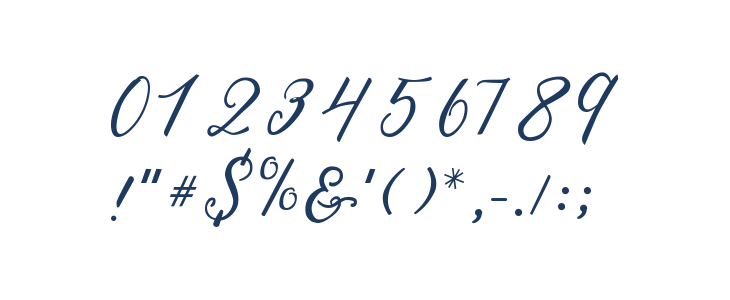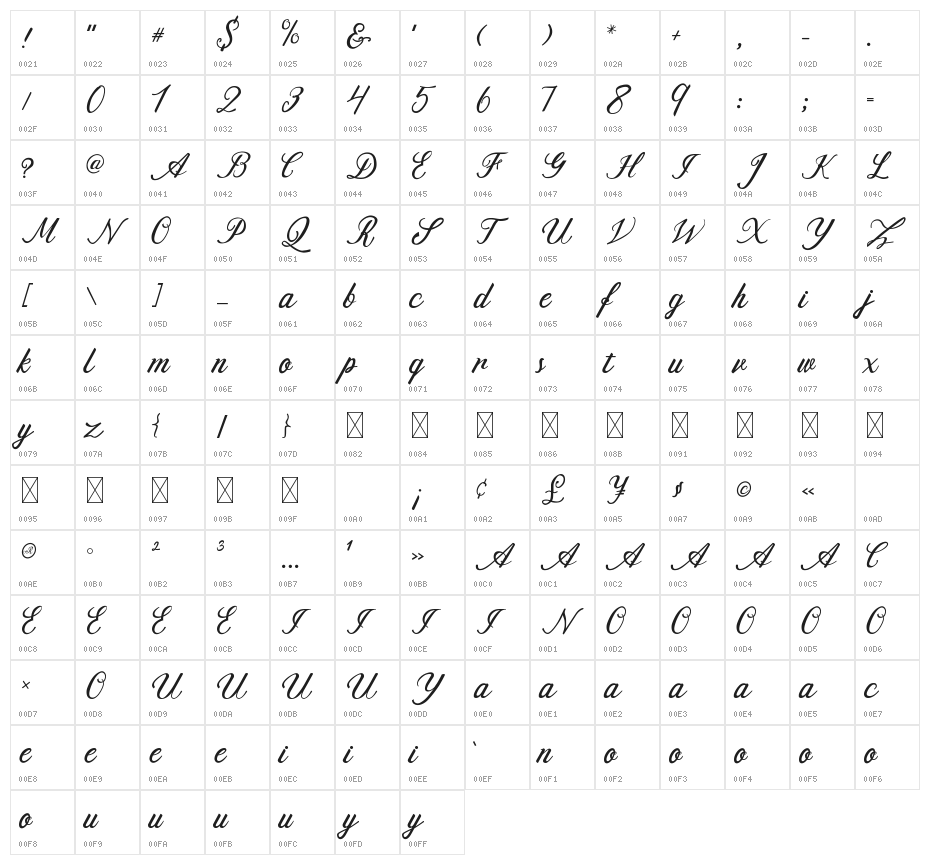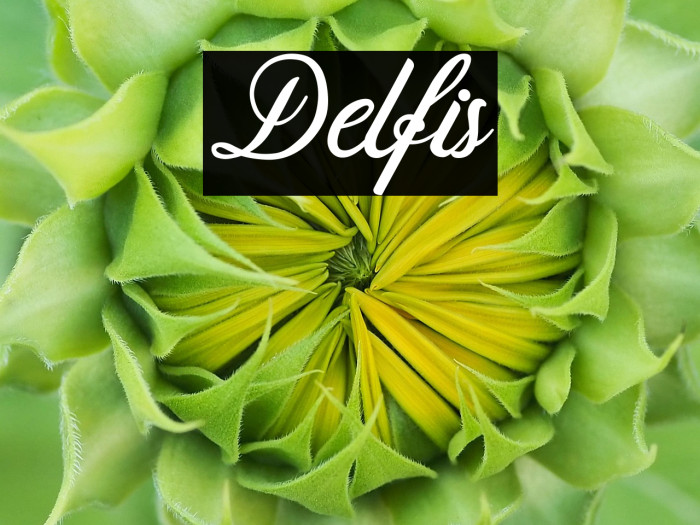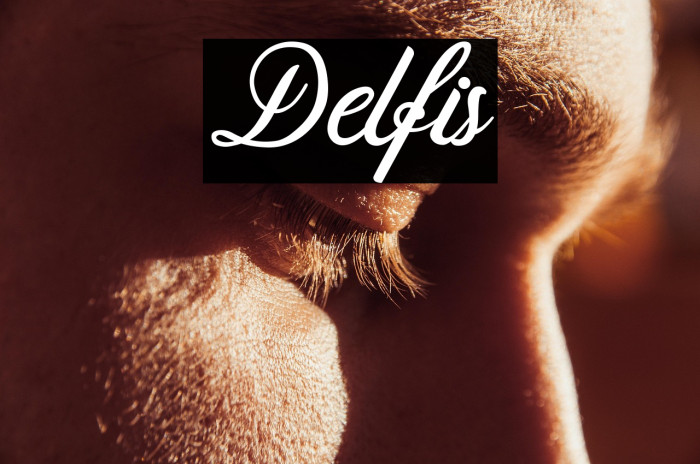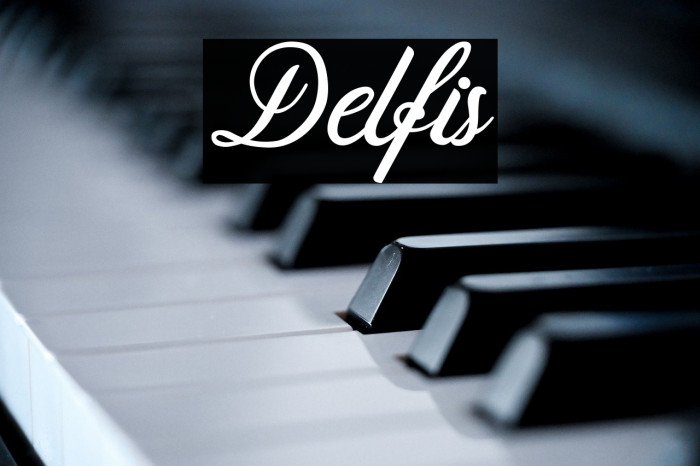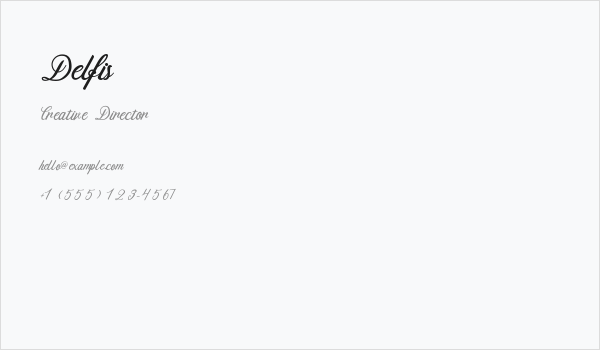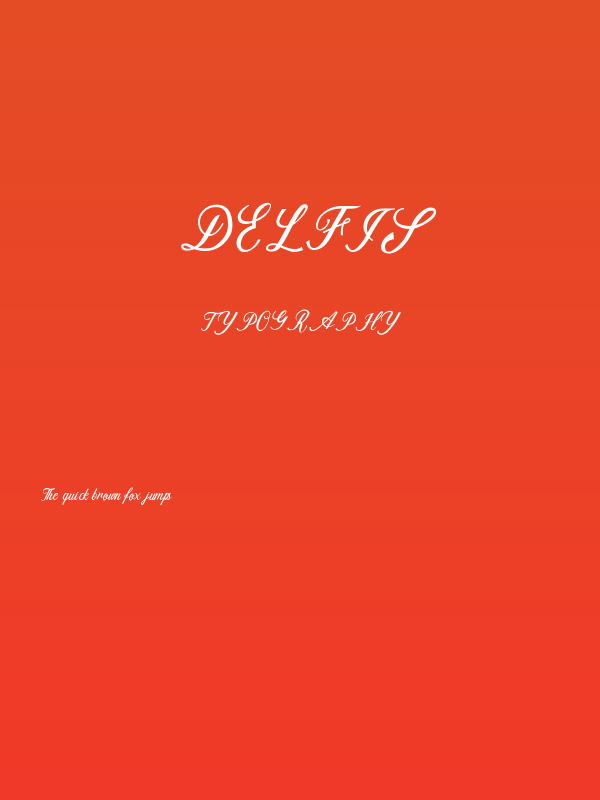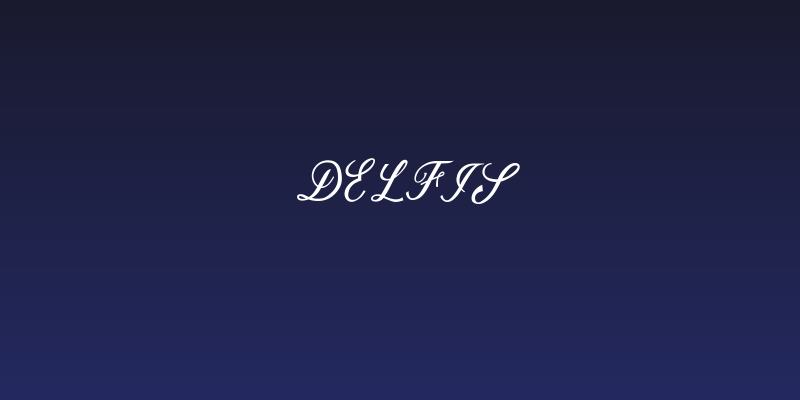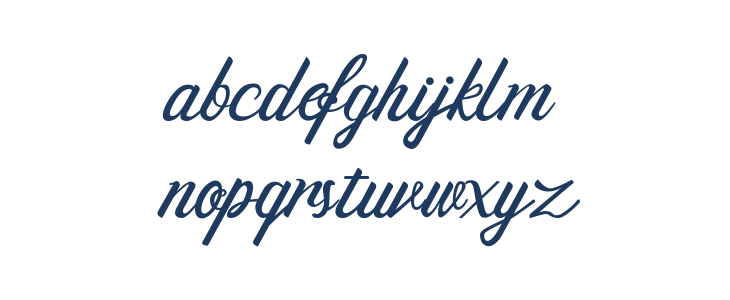
Delfis Font
This elegant script font features a flowing, cursive style with a classic and sophisticated appearance. The uppercase letters are intricately designed with smooth curves and delicate loops, while the lowercase characters maintain a consistent slant, enhancing the font's graceful aesthetic. The numerals are equally stylish, complementing the overall design with their fluid lines. Special characters are crafted with the same attention to detail, ensuring a cohesive look across all glyphs. The font's high contrast between thick and thin strokes adds to its refined and polished feel, making it ideal for formal and decorative applications.
| Overall Style | Classic |
| Use Case | Logos, Invitations, Decorative text |
| Proposed Projects | Ideal for wedding invitations, elegant branding, luxury product packaging, and formal event materials. |